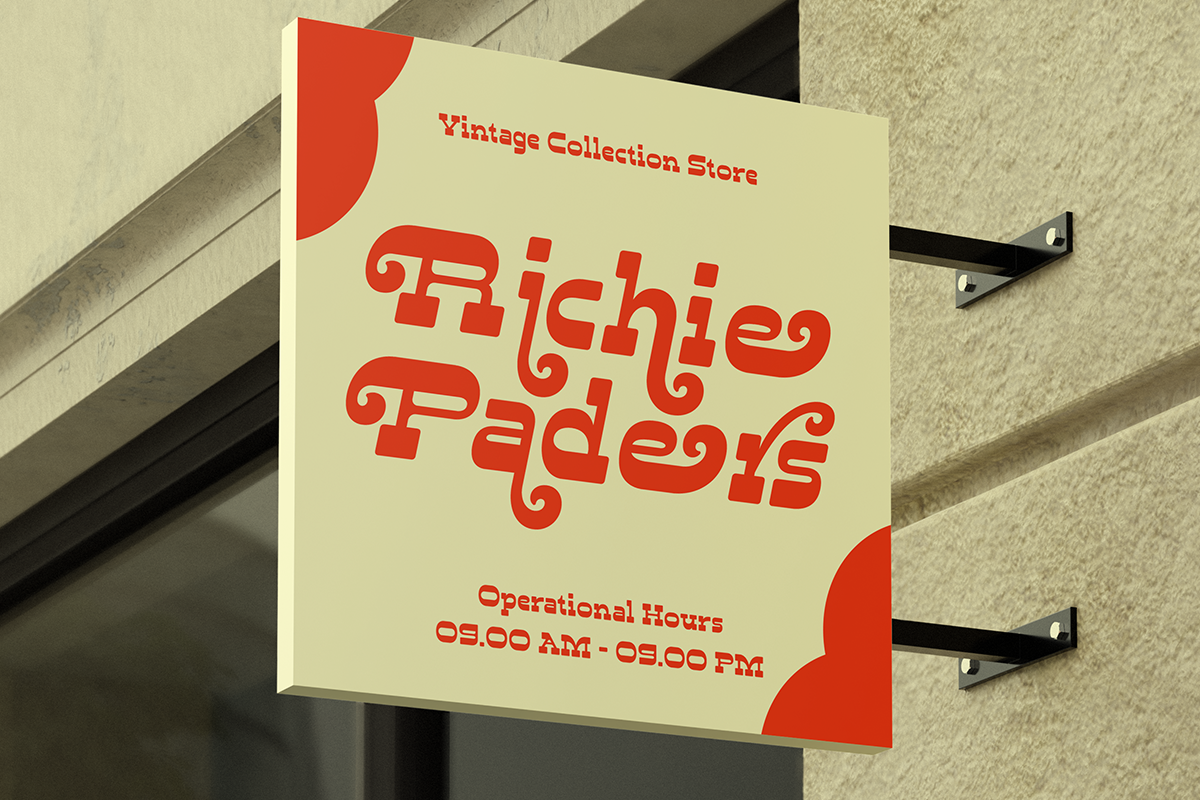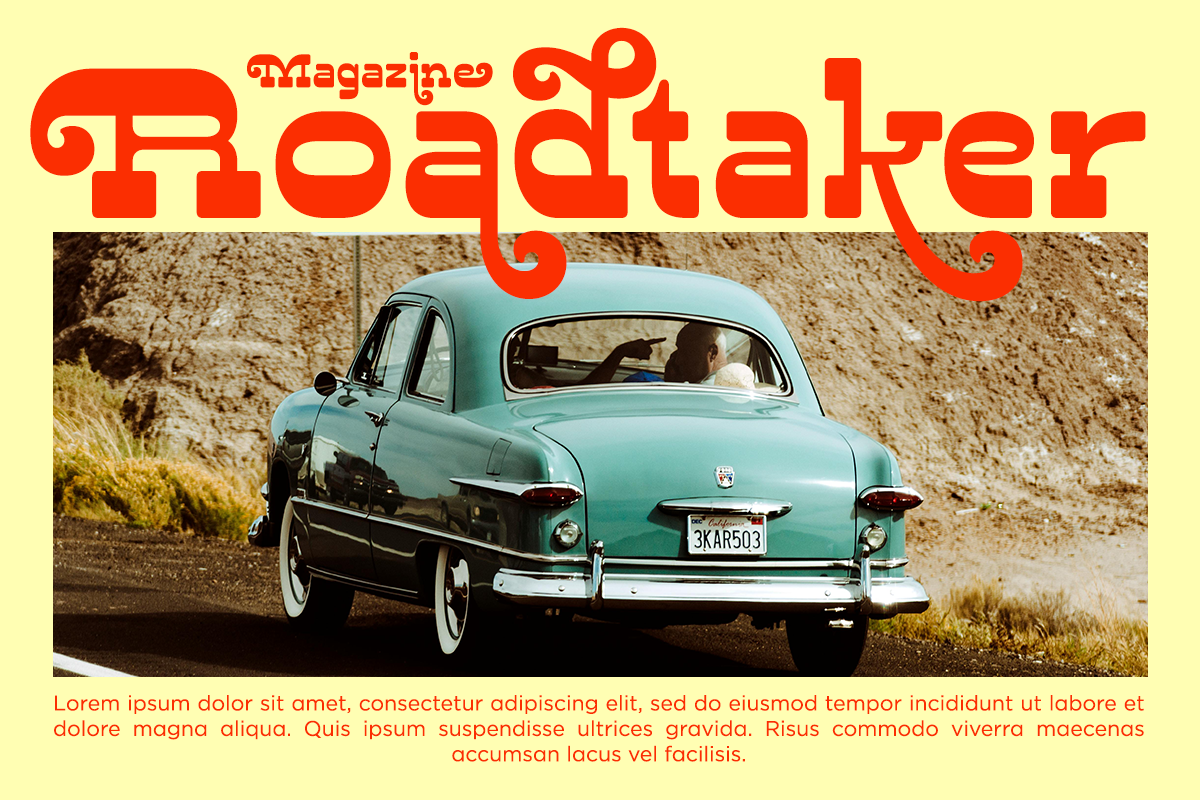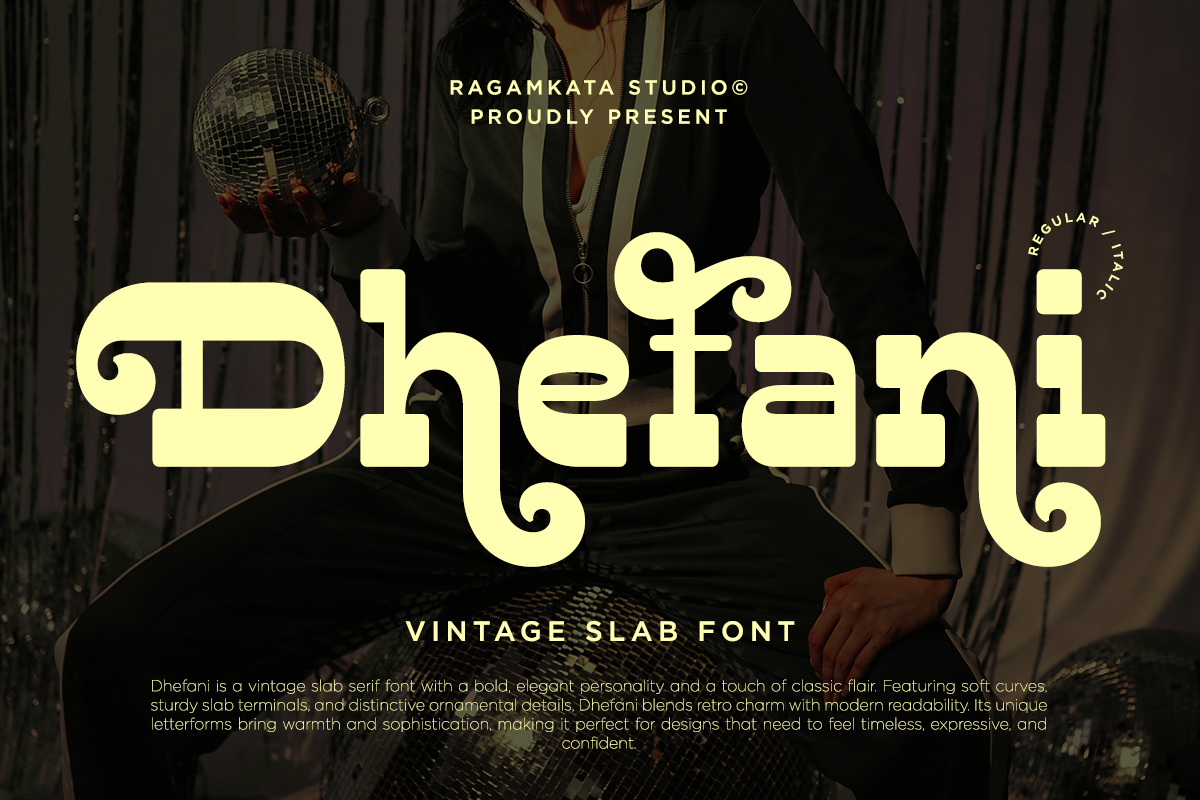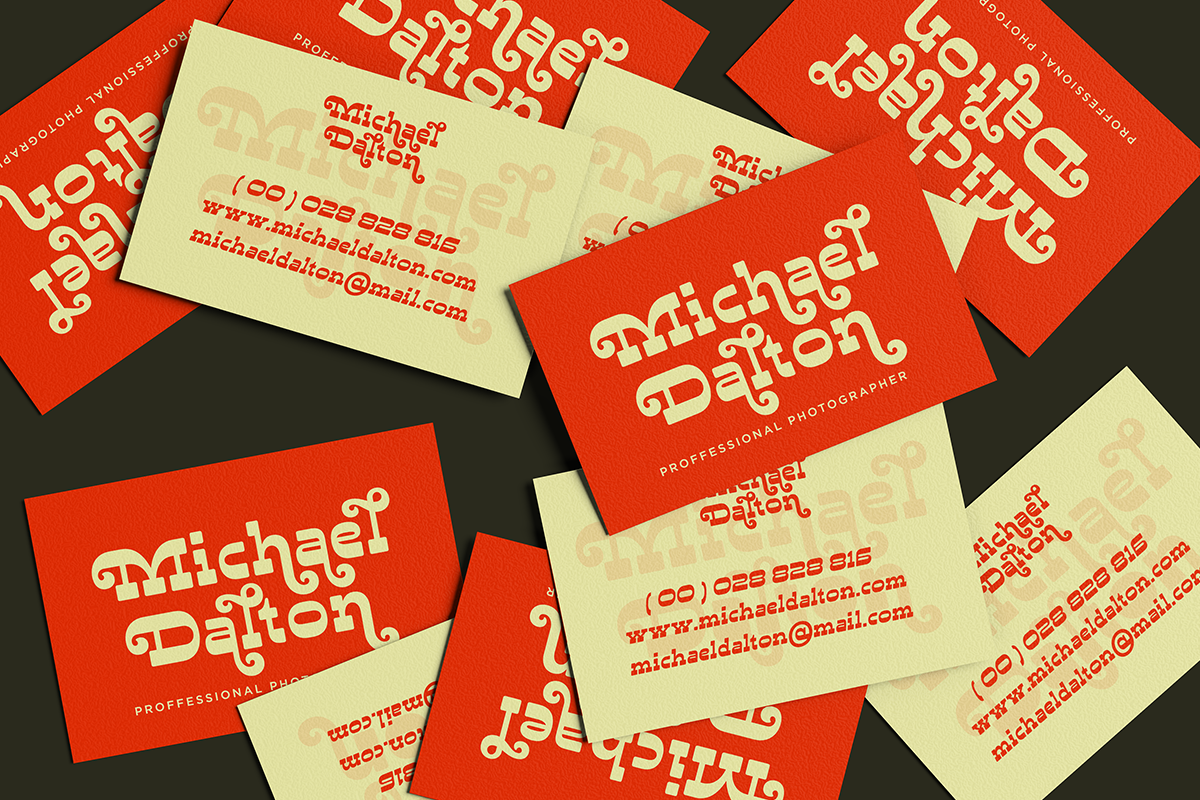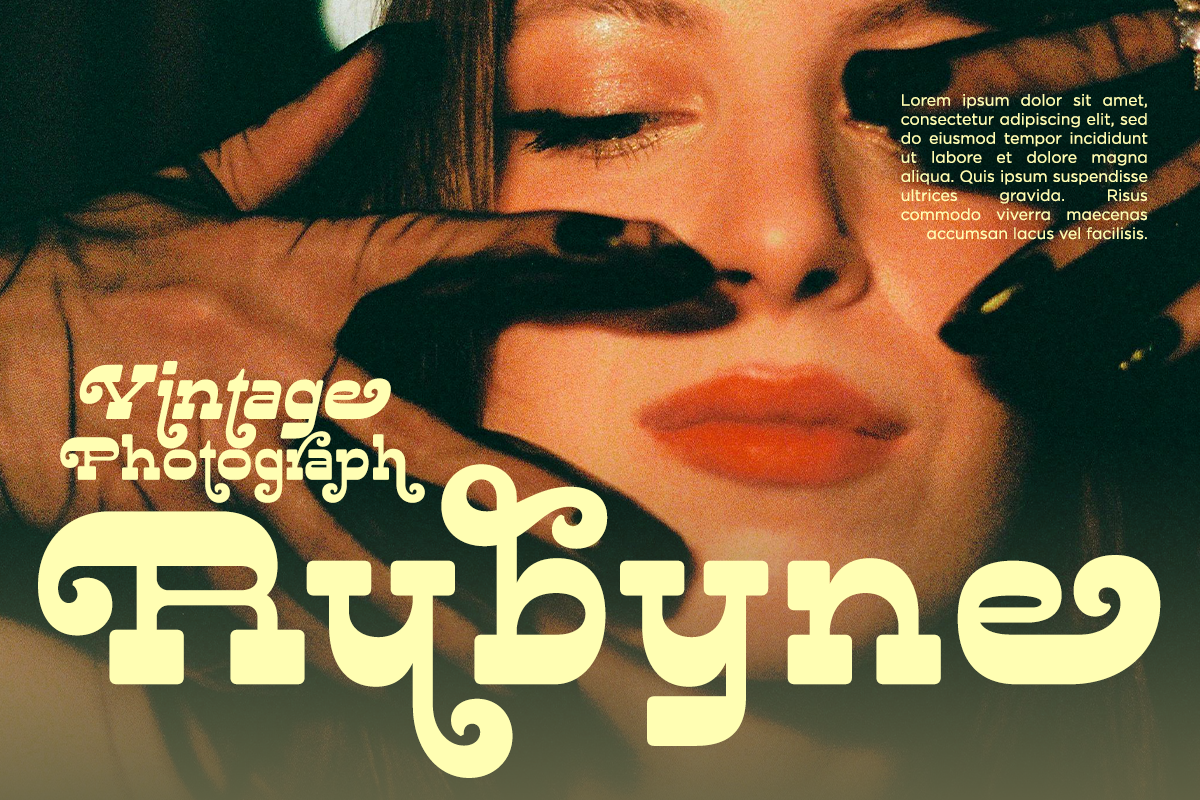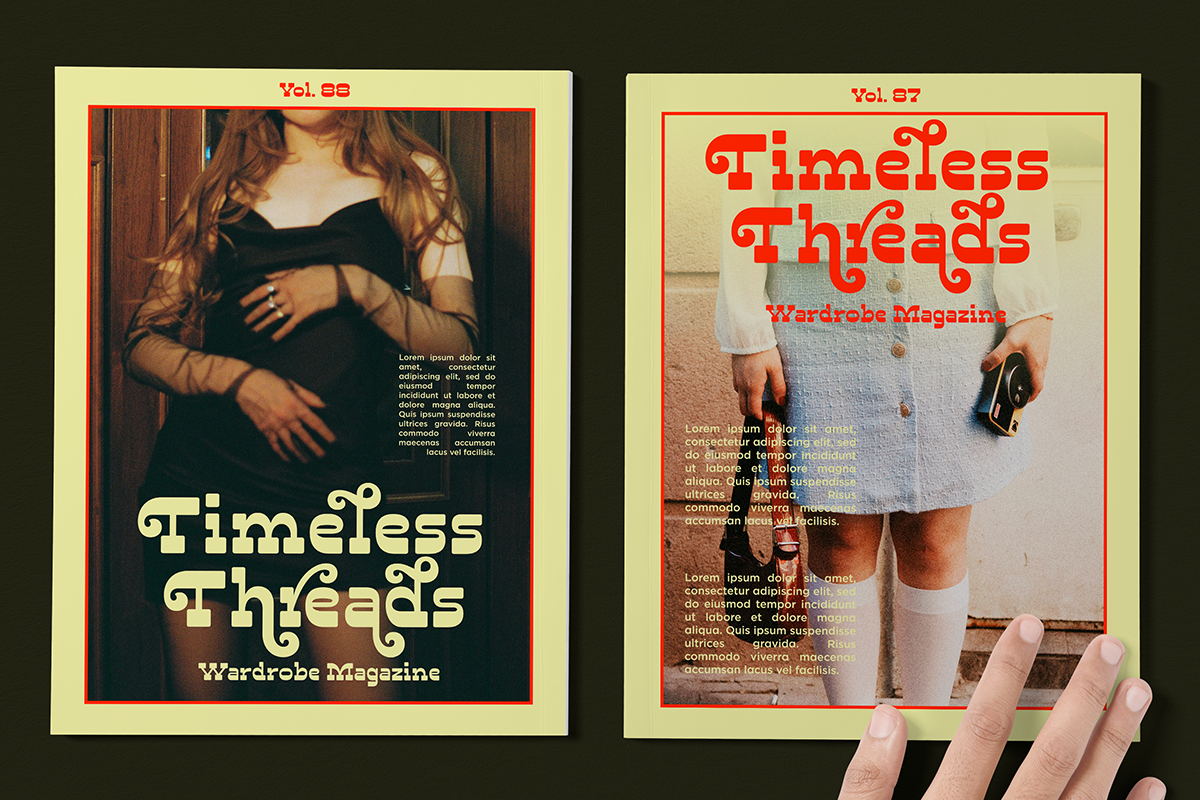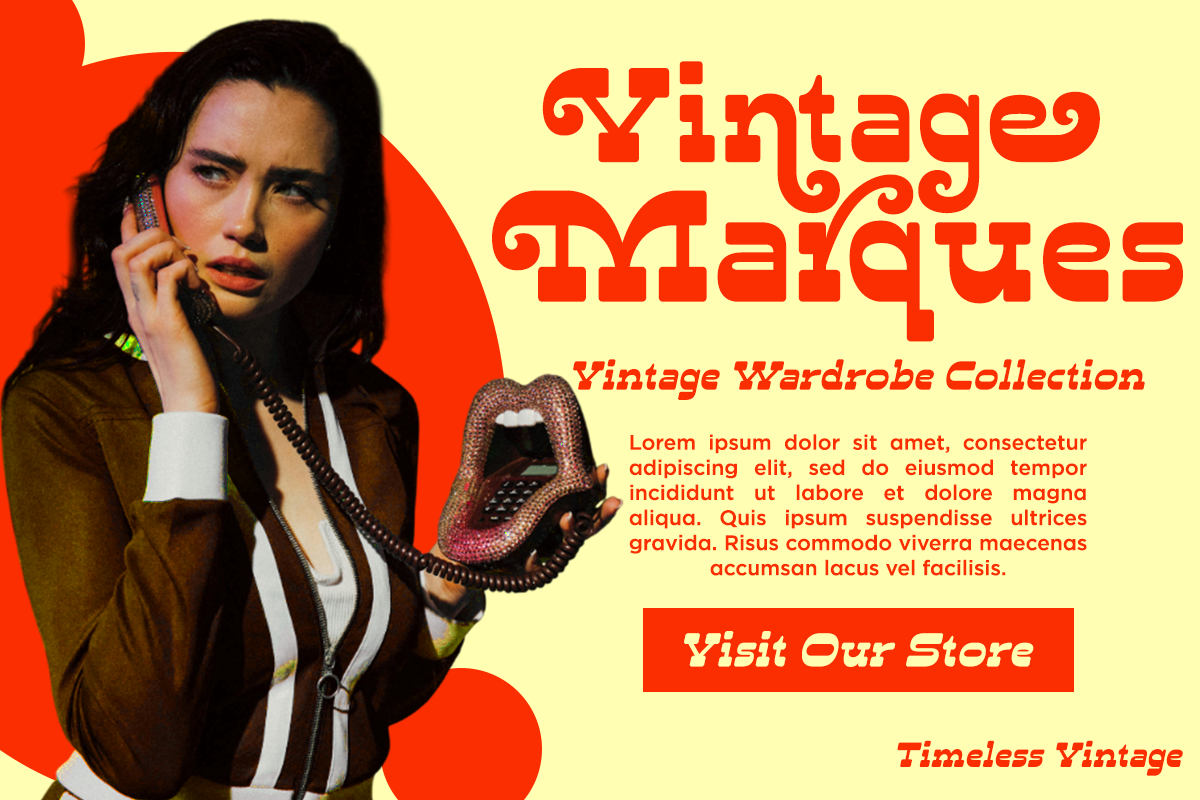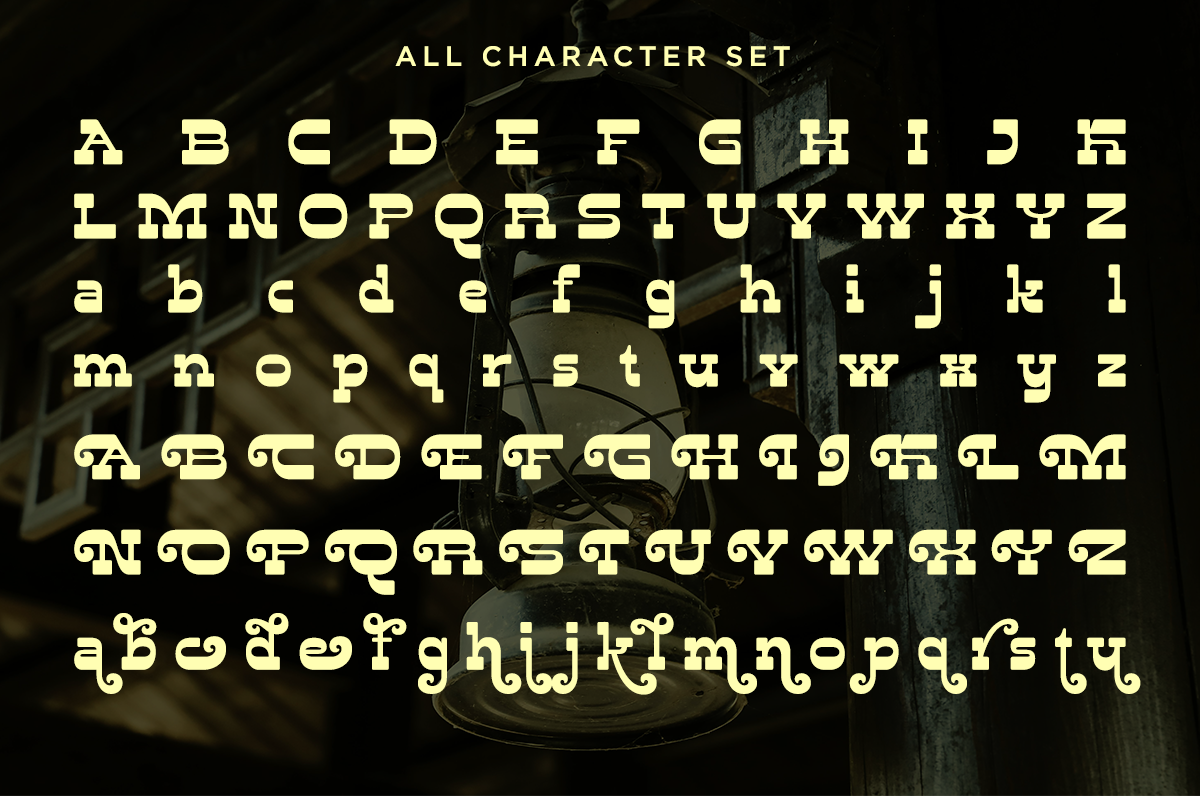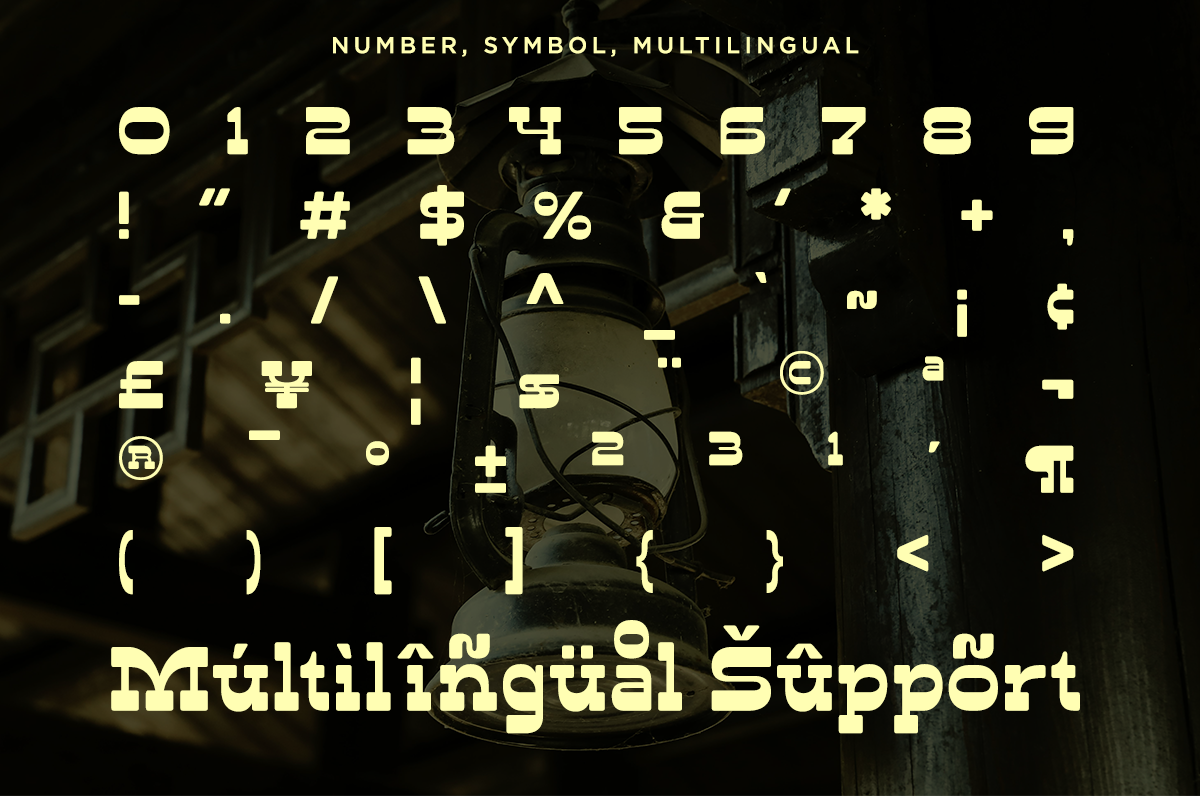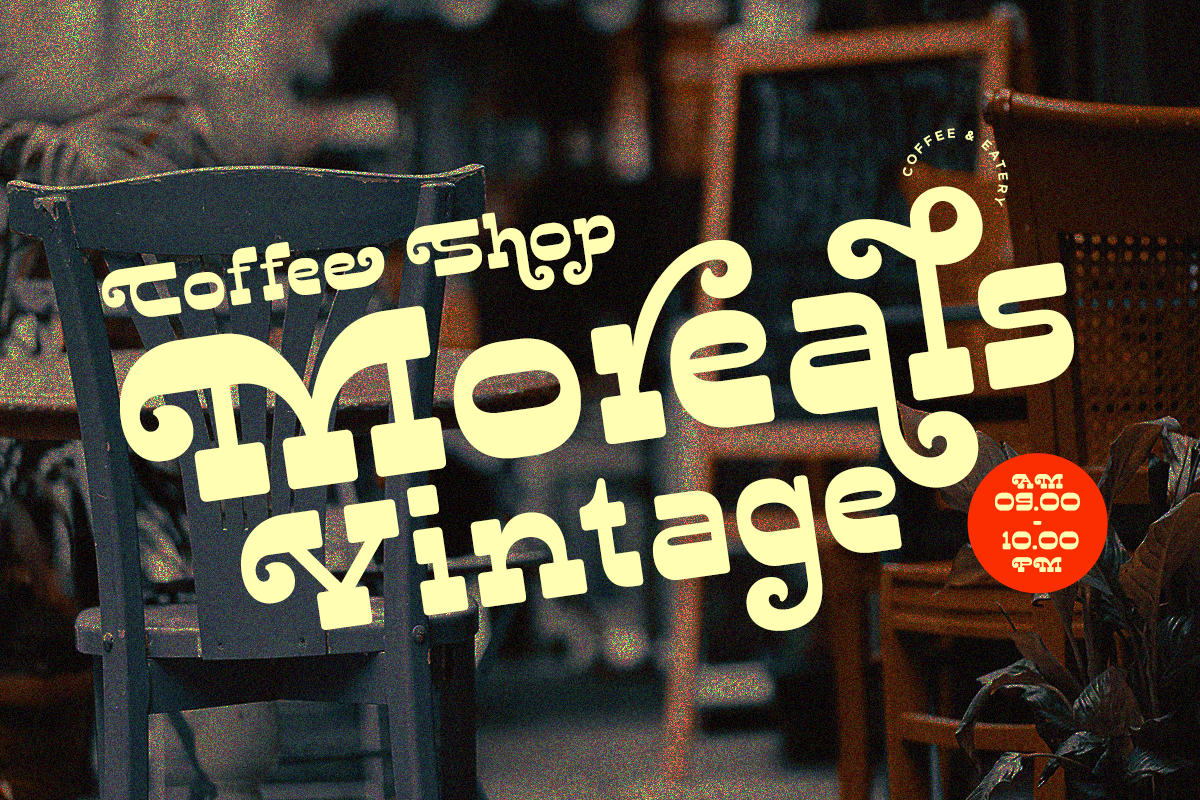
Dhefani - Vintage Slab Font
Dhefani is a vintage slab serif font with a bold, elegant personality and a touch of classic flair. Featuring soft curves, sturdy slab terminals, and distinctive ornamental details, Dhefani blends retro charm with modern readability. Its unique letterforms bring warmth and sophistication, making it perfect for designs that need to feel timeless, expressive, and confident. Perfect For logo design, branding, vintage posters, packaging, editorial headlines, book covers, café and restaurant branding, fashion labels, invitations, signage, social media graphics, and promotional materials.
- Stylish Alternate Set ( Uppercase & Lowercase )
- Symbol and Number